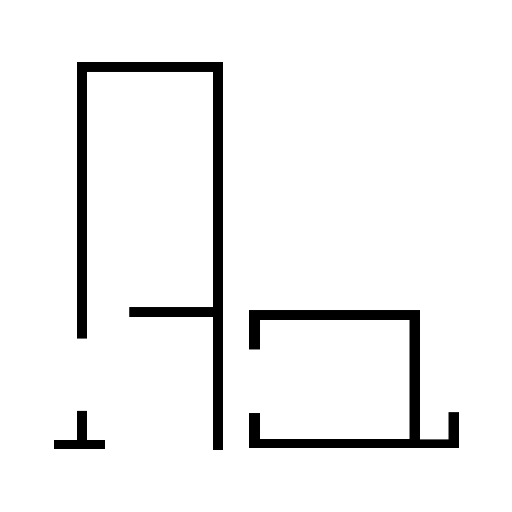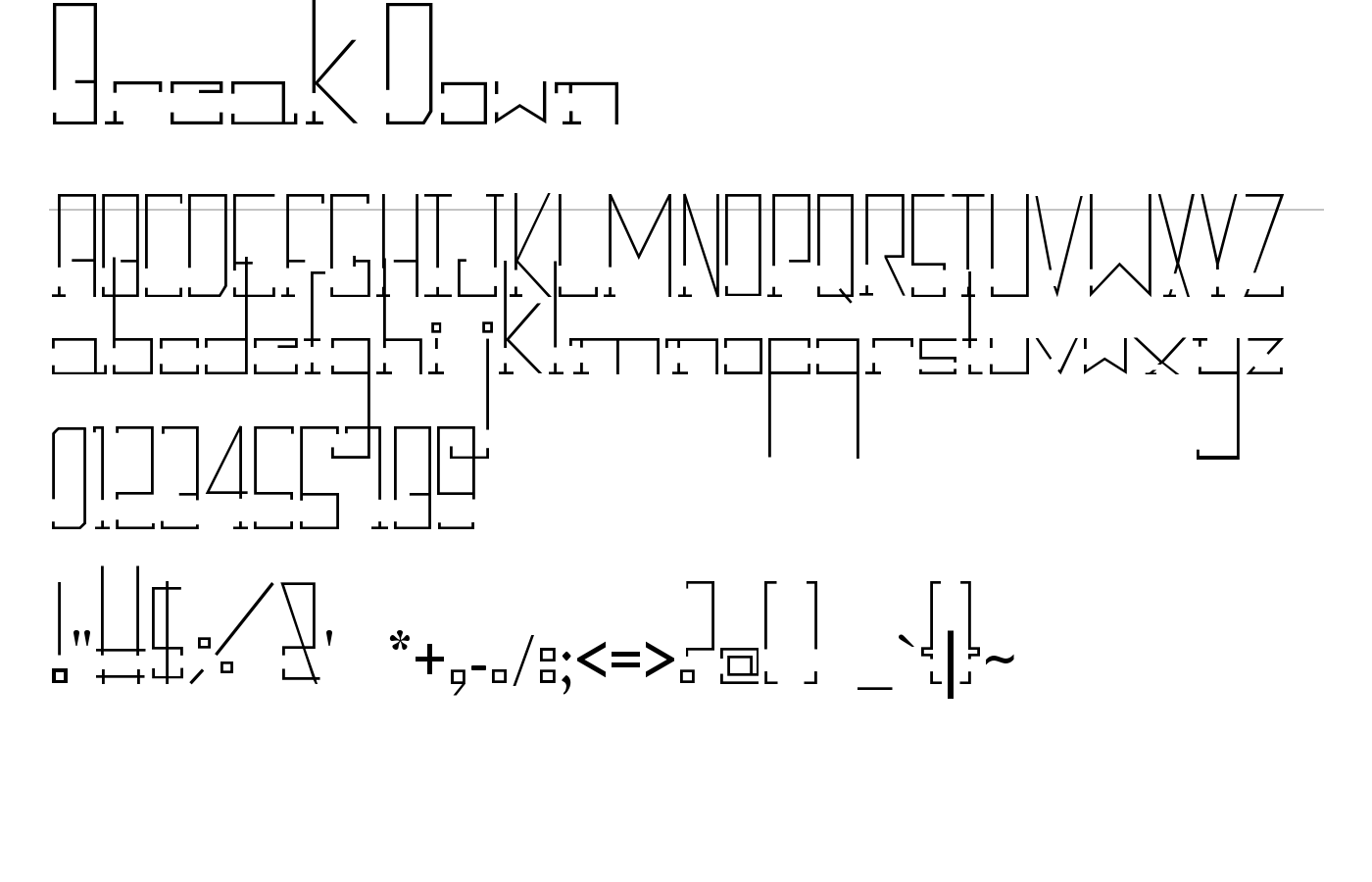
Break Down Font is a thin, geometric, sans serif typeface with a technical and futuristic vibe, characterized by its linear, almost architectural letterforms with sharp angles and fragmented strokes. Its light weight and narrow width give it an airy, digital feel, ideal for modern, tech-focused designs that seek a clean yet unconventional aesthetic. This font works best for headlines, logos, and creative projects that want to convey innovation, precision, and a cutting-edge style.
Break Down Font